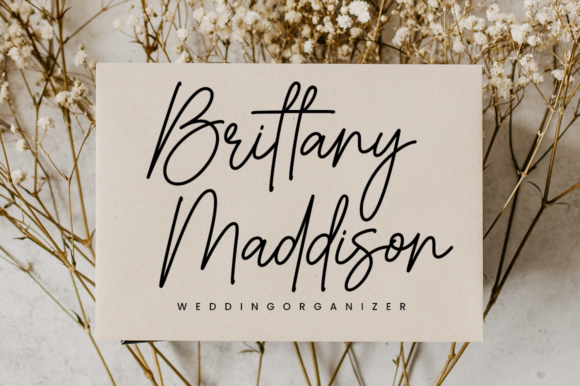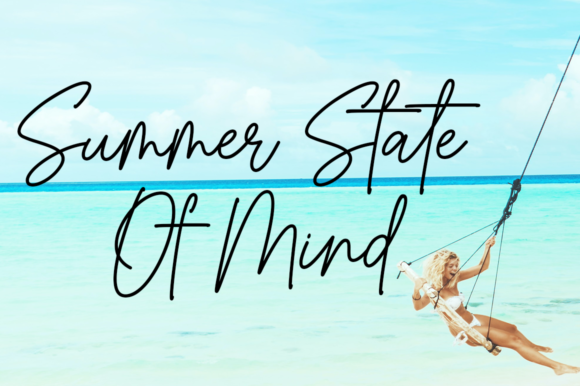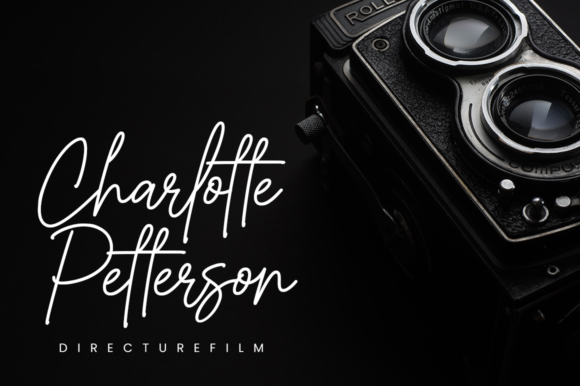
Rockline is a thin lettered handwritten font, masterfully designed with a delicate touch. Use it for projects that need lovely, romantic typography! This font is PUA encoded, which means you can access all of the glyphs and swashes with ease!
Rockline Font